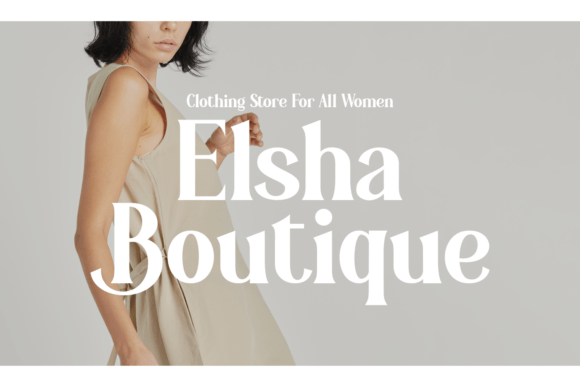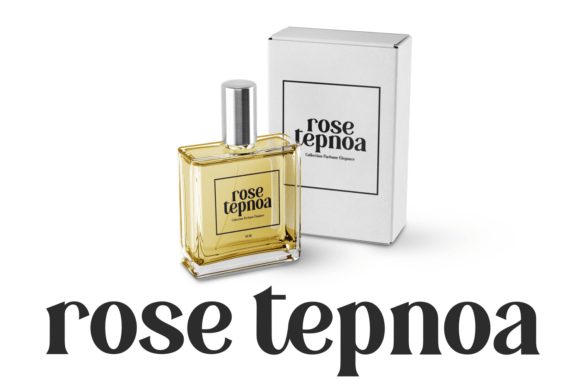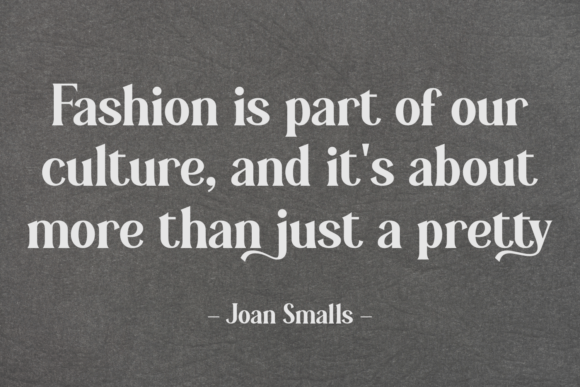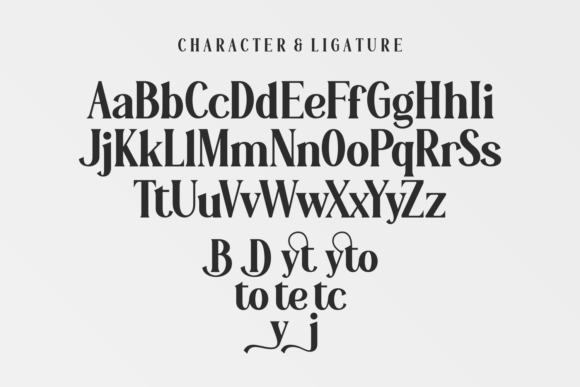
Introduction to Beytone Font
Beytone is a contemporary serif typeface that blends classic elegance with striking personality.
With high contrast strokes, sharp serifs, and artistic ligature touches, Beytone offers a unique voice thatโs both refined and daring Perfect for luxury branding, editorial headlines, fashion magazines, and sophisticated logo designs, this font commands attention while maintaining timeless grace.
Key Features of Beytone Font
Why Choose Beytone Font?
Beytone Font offers exceptional quality and versatility, making it a valuable addition to your design toolkit. Whether you’re creating for personal projects or commercial use, Beytone Font delivers professional results.